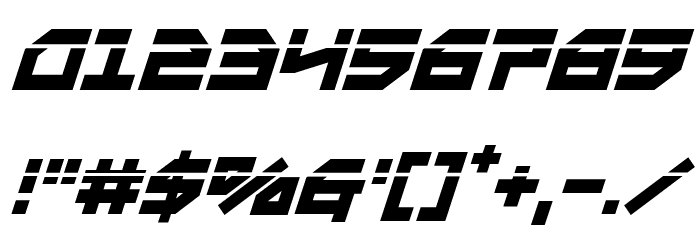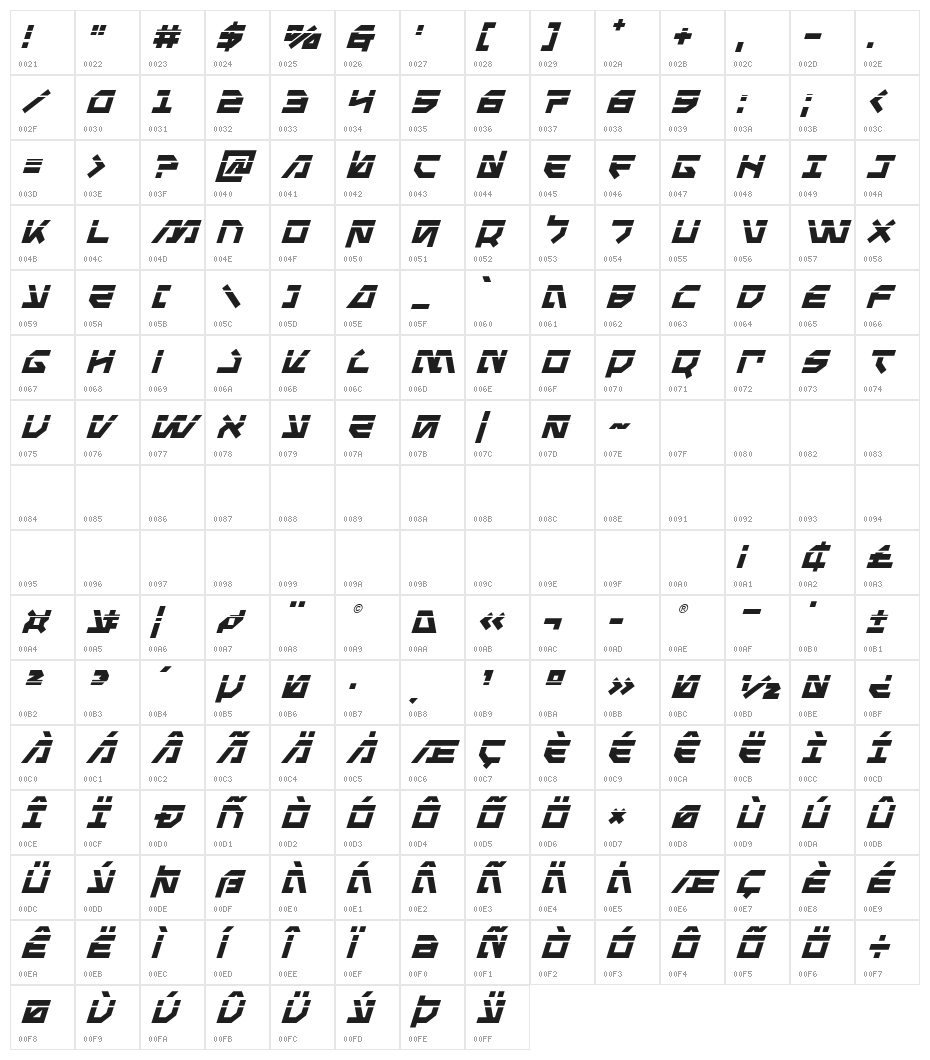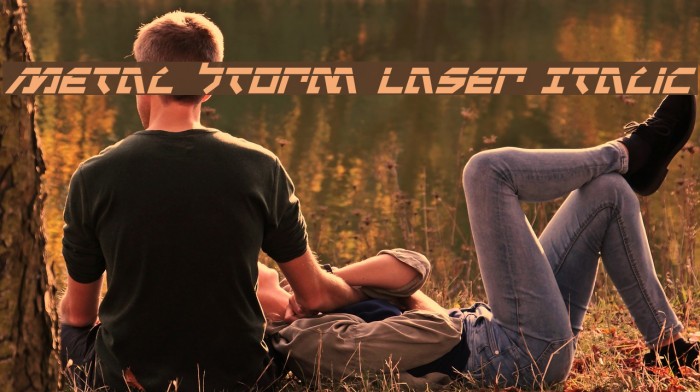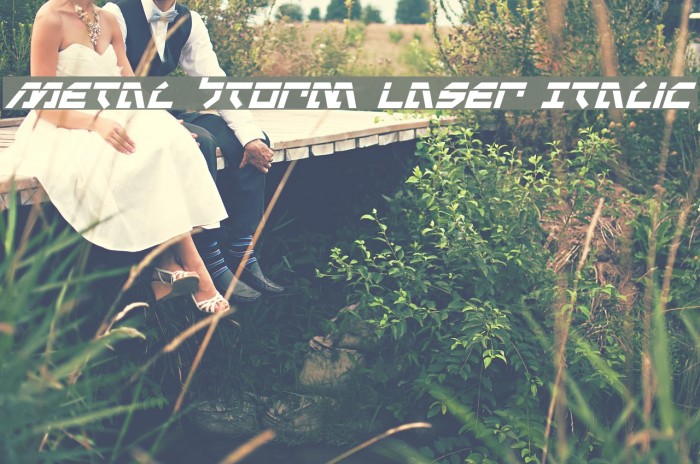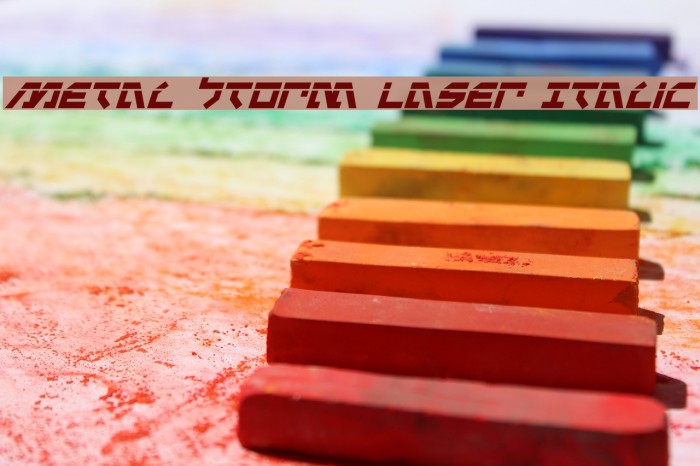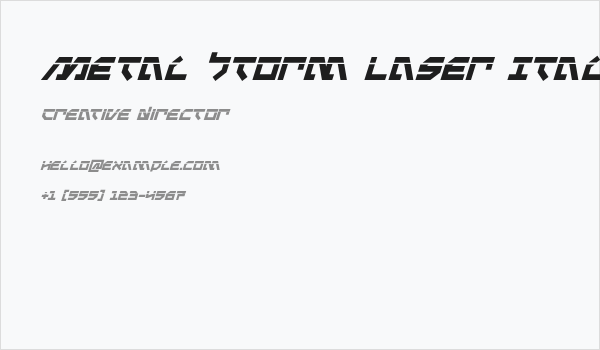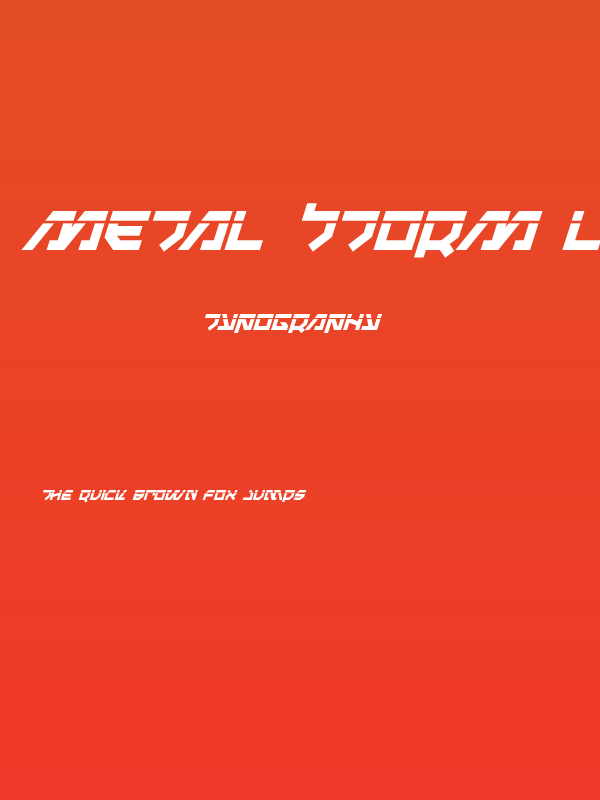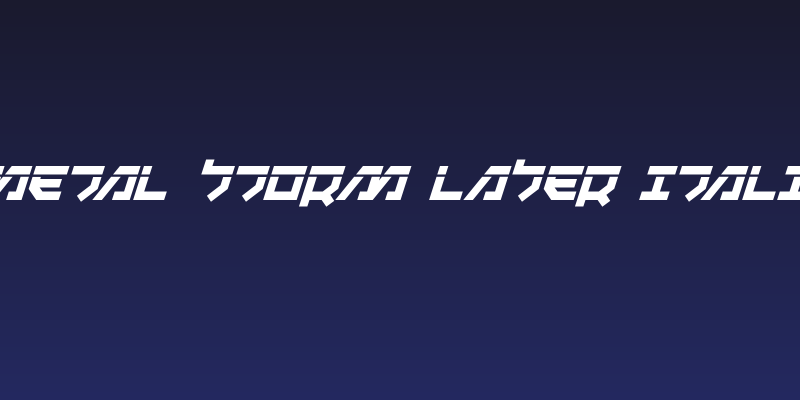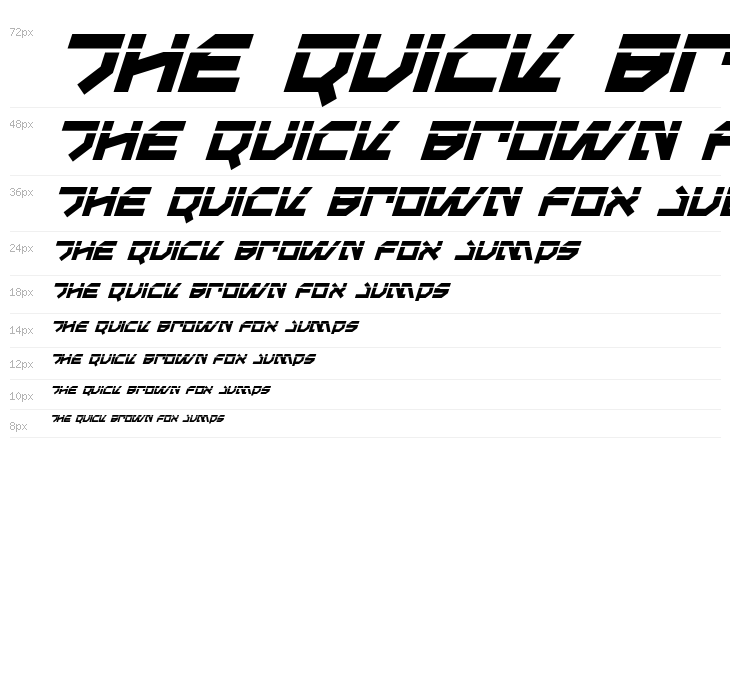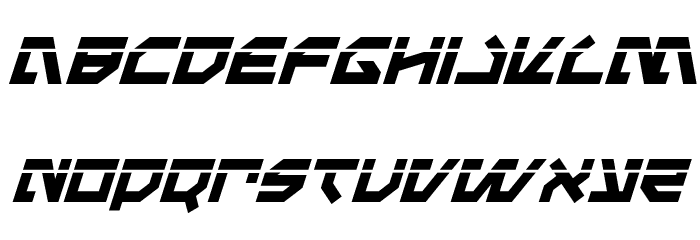
Metal Storm Laser Italic Font
Metal Storm Laser Italic Description
This font features a futuristic and angular design, characterized by sharp edges and a bold presence. The letters are slanted, giving an italicized effect that enhances its dynamic and energetic appearance. The geometric shapes and clean lines suggest a modern, tech-inspired aesthetic, making it ideal for projects that require a strong, impactful visual statement. The uppercase and lowercase letters maintain a consistent style, while the numerals and special characters complement the overall design. Its unique style is perfect for creating eye-catching headlines or logos.
| Proposed Projects | Ideal for sci-fi themed designs, tech company logos, video game titles, and futuristic posters. |